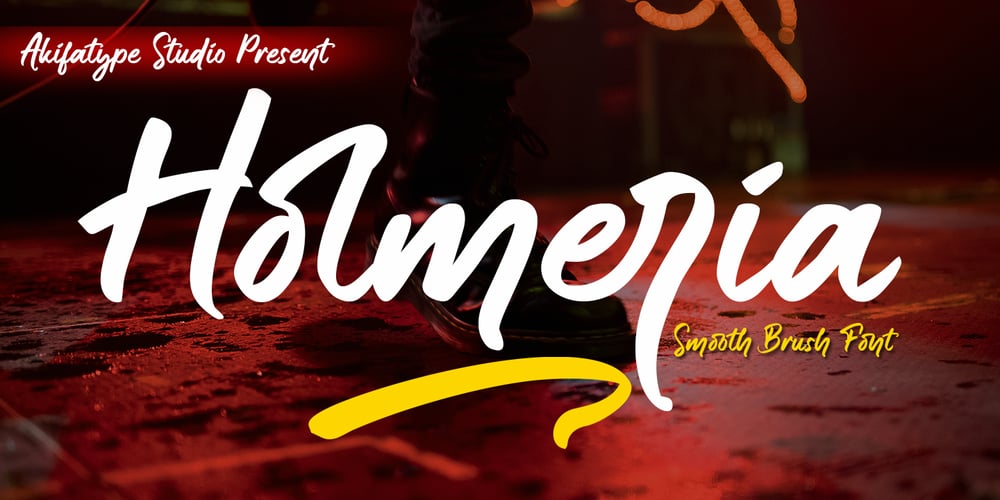
Holmeria Font Family was designed by Khaled and published by Akifatype. Holmeria contains 1 styles and family package options. Holmeria is a new clean smooth brush font, giving it a trendy and feminine touch. Holmeria looks lovely on wedding invitations, thank you cards, quotes, greeting cards, logos, business cards and more. Perfect for using in ink or watercolor. Including initial and terminal letters, alternates and multiple language support.